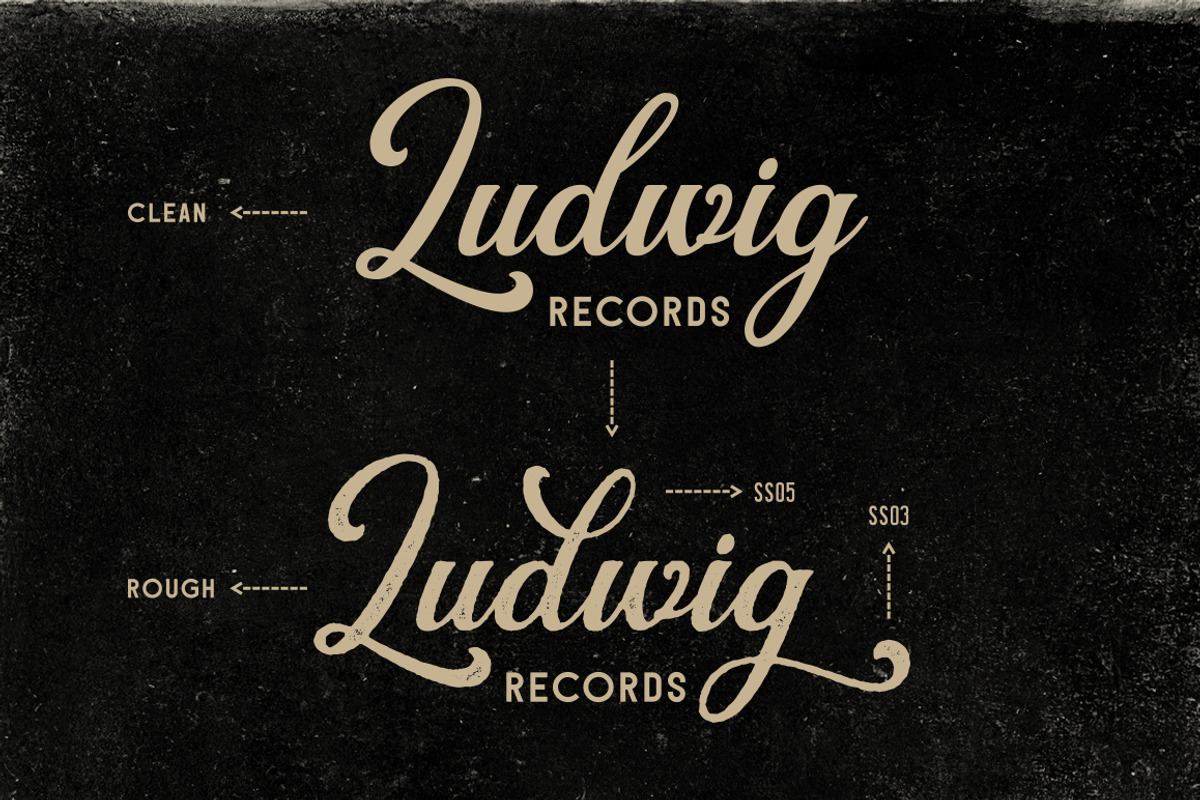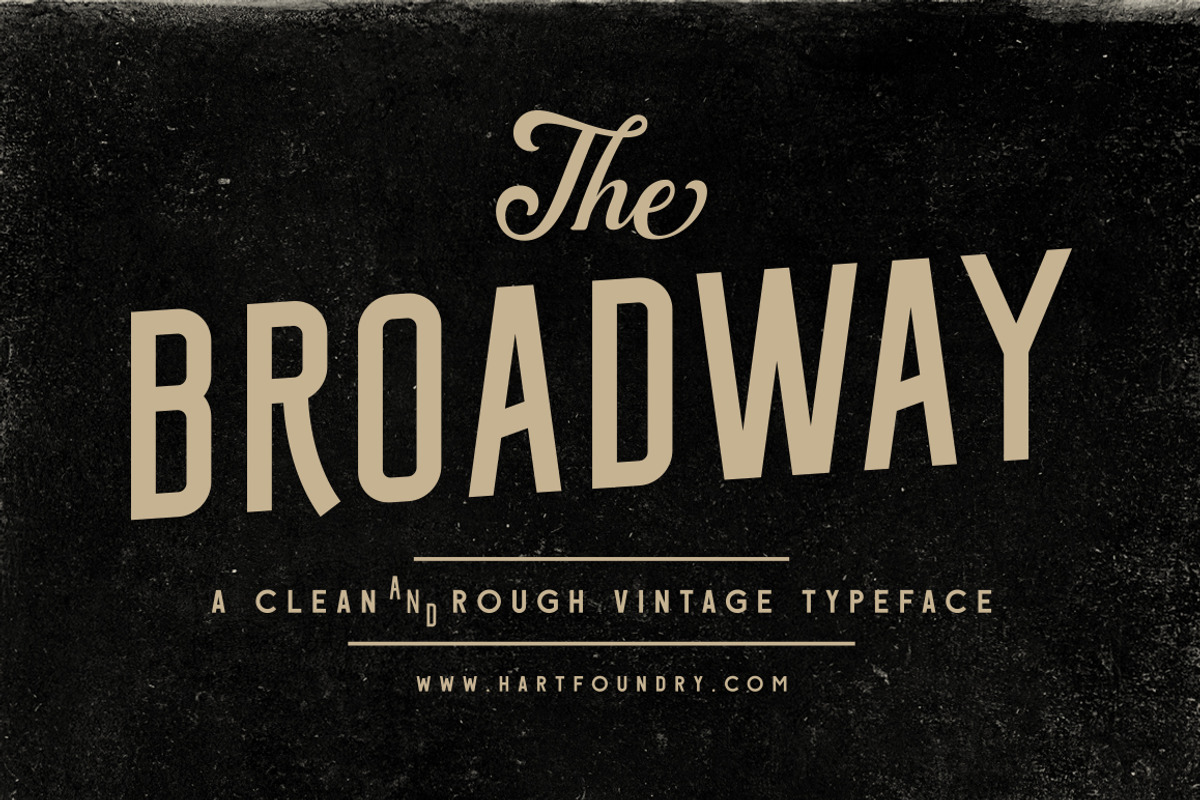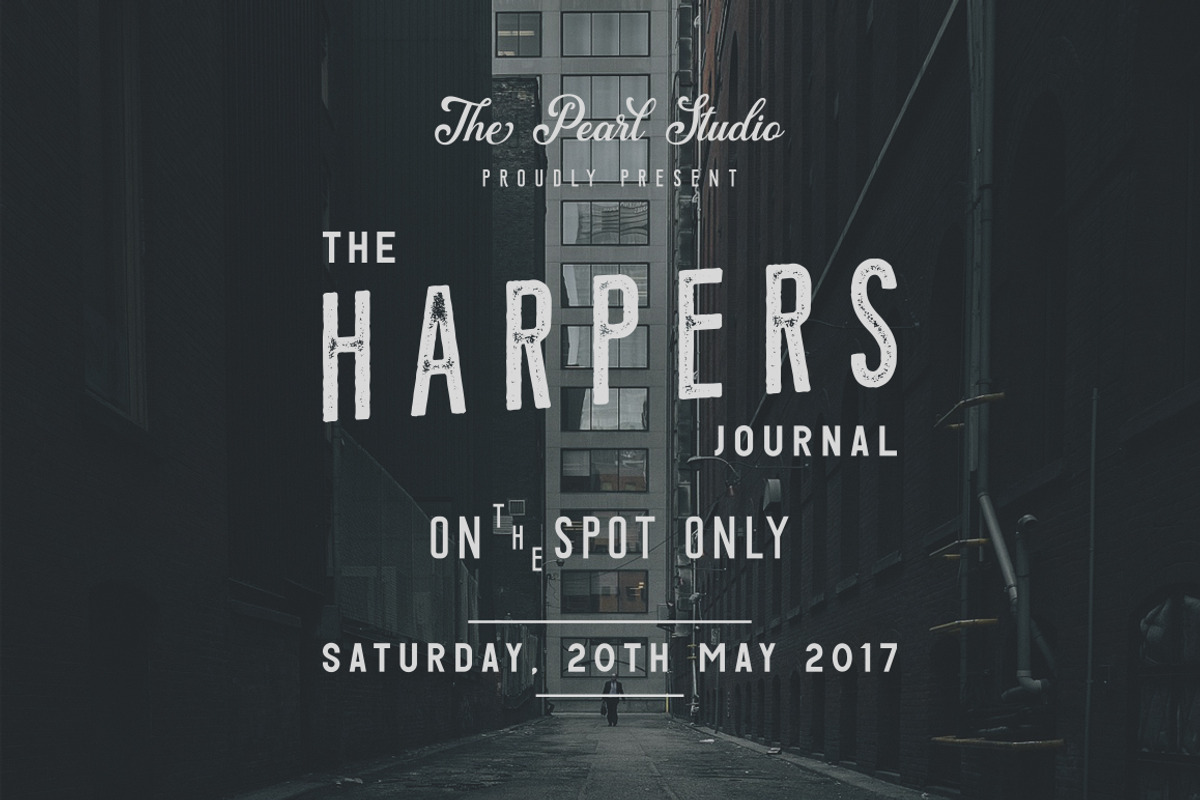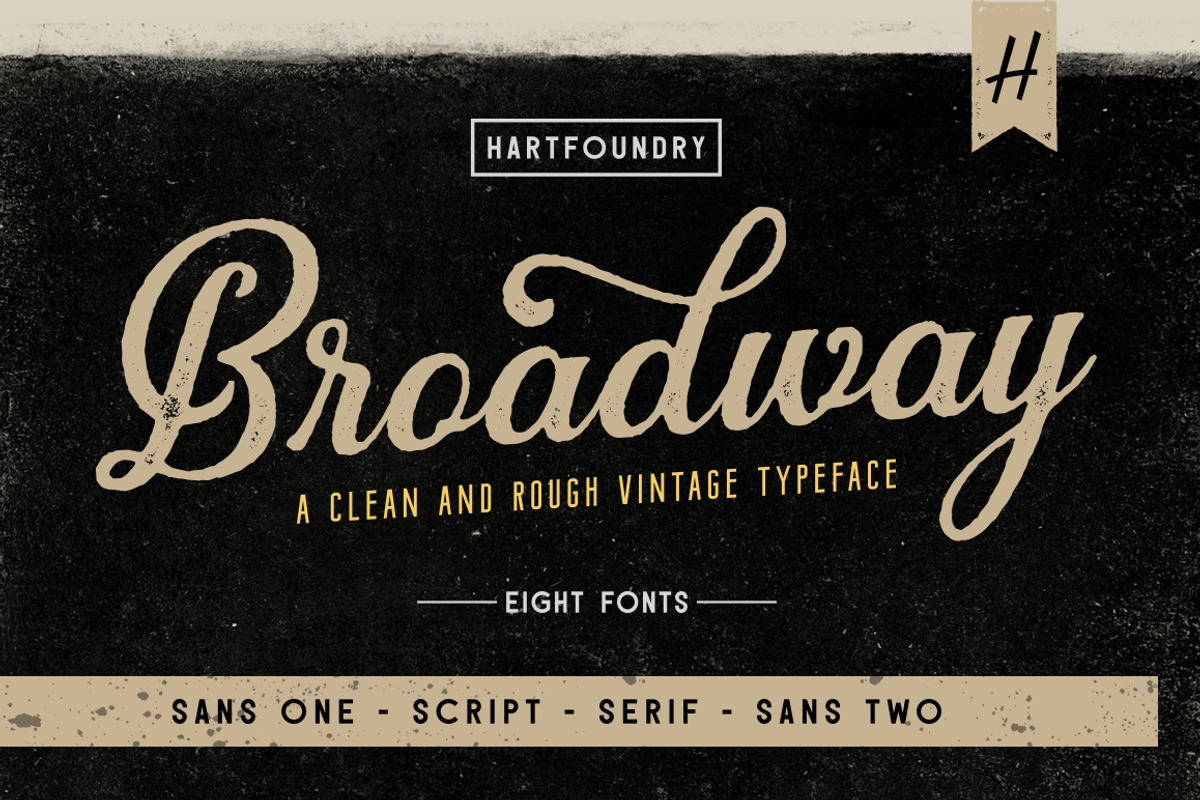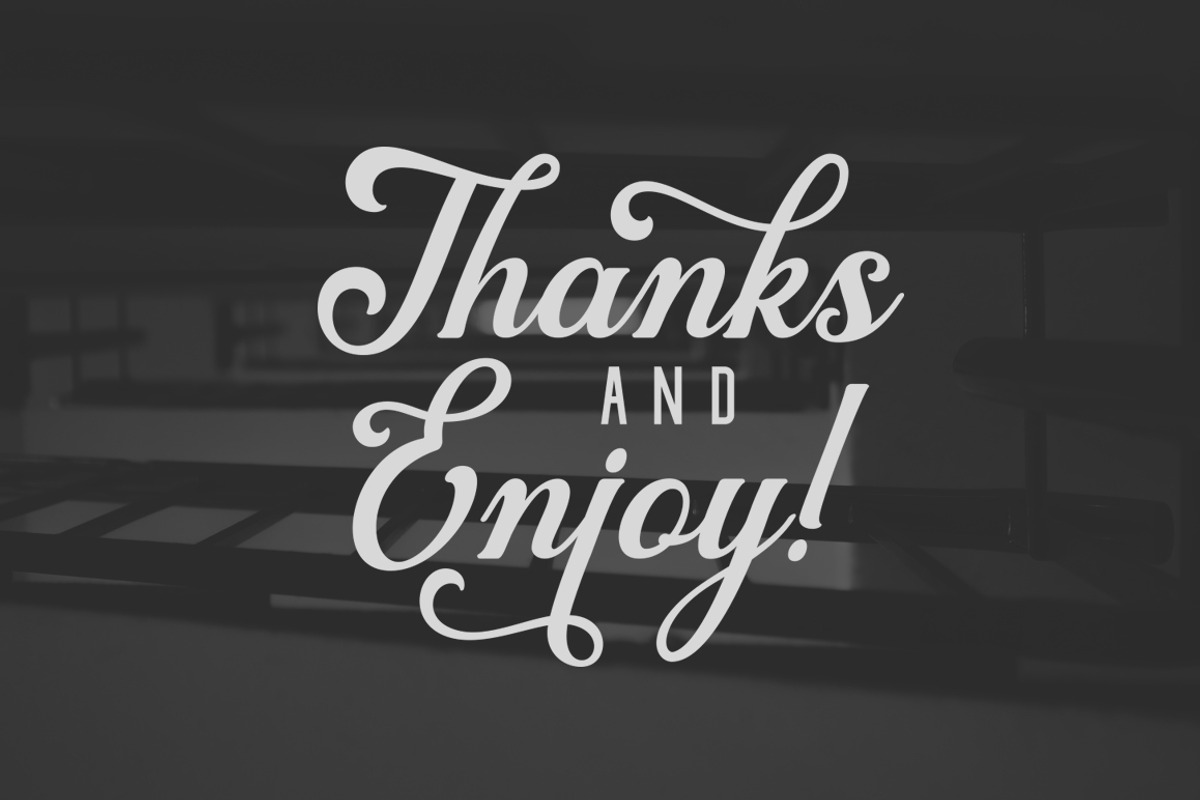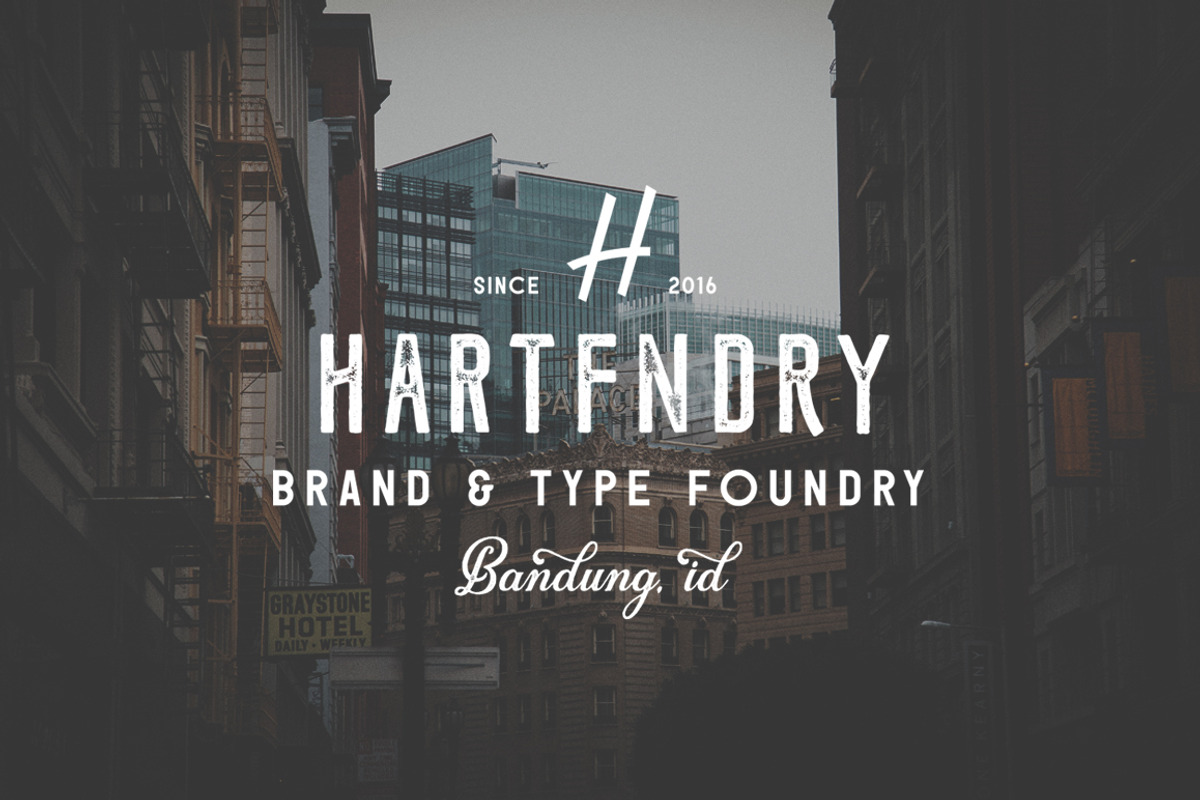
Broadway | Font Pack
Broadway Inspired by the vintage script, but made a little more modern. In combination with two types of san serif regular and condensed you can explore the design you need for your typography project. This font package is perfect for magazines, titles, invitations, movies, product designs, brands, and other design projects.
Broadway Script Clean & Rough • This is the main font, consists of 402 glyphs, alternatives from ss01 to ss09, punctuation and multi language support. You can play with an alternate character on this font, resulting in nonstandard characters.
Broadway Sans One Clean & Rough • This is the second main font, this is the condensed font. This font can be used as the primary word to replace the main font, such as the example on the display. This font is available with several character alternatives such as letters a, c, e, f, h, j, r, s, t, and z
Broadway Sans Two Clean & Rough • This is a regular font functioning as the main and second font support. They can unite and become the perfect combination
Broadway Serif & Rough • NEW!